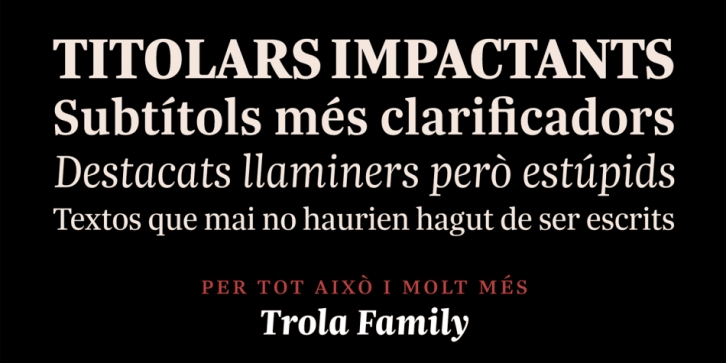
Trola is a serif font family. This typeface has ten styles and was published by Tipografies.
Trola (lie in Valencian) is a family related to Bulo. They share the same skeleton, but Trola has a completely different flavor. Its unusual proportions makes it particularly recommended for generous sizes to fit in tight spaces. It can also be considered a headline font with a moderate contrast to gain presence and make a stronger screen display. Enjoy it.